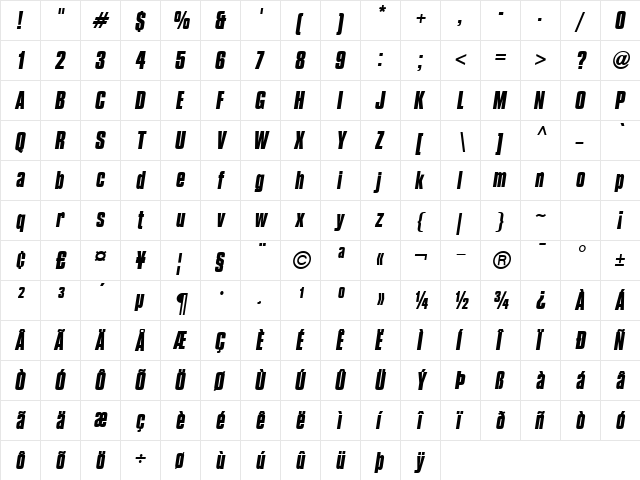
Compacta ICG BoldItalic Font Preview
Design Context for Compacta ICG Typeface
Compacta ICG takes a measured approach to typography — its balanced proportions and neutral character make it a reliable workhorse for both digital and print work. The slanted form adds forward momentum and visual energy. The heavy weight commands attention and anchors typographic hierarchies. The condensed width makes it efficient for tight spaces without sacrificing legibility.
Pro Tip: Try Compacta ICG for annotation and caption copy alongside an upright companion — the contrast in angle creates a dynamic but ordered typographic system.